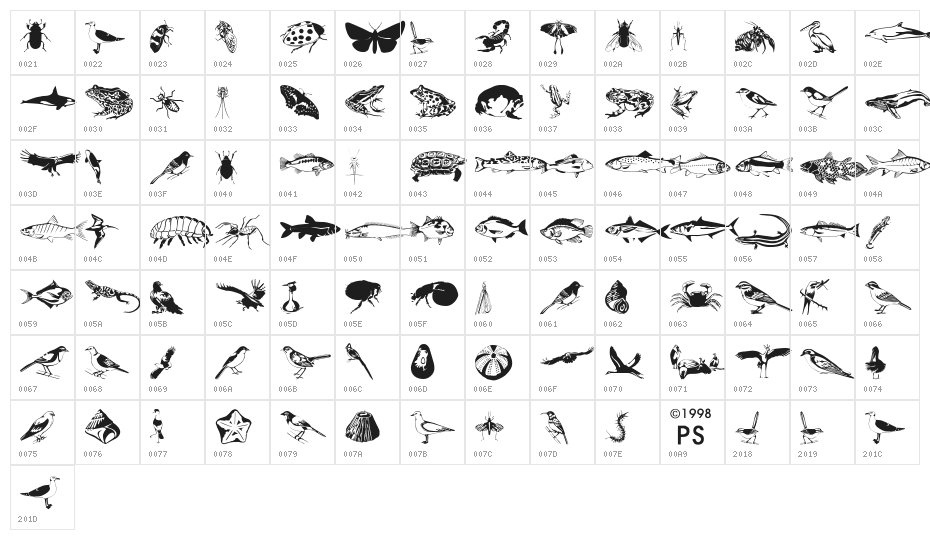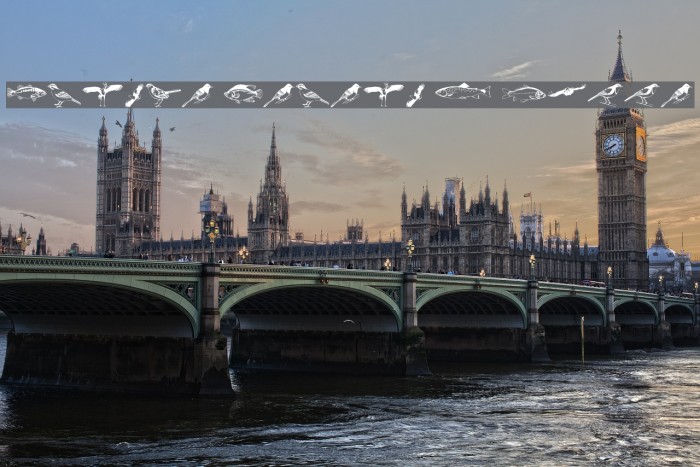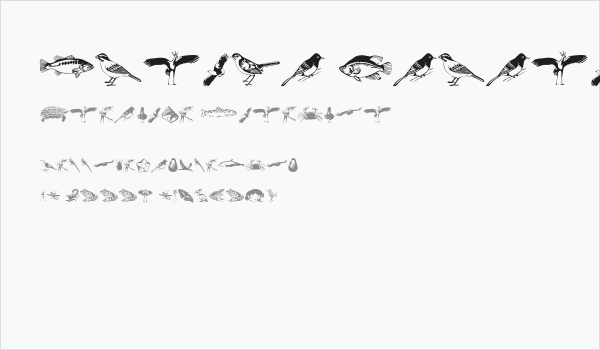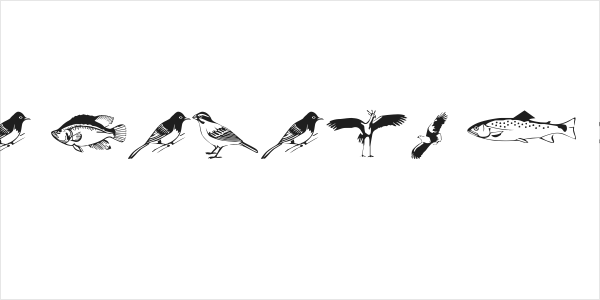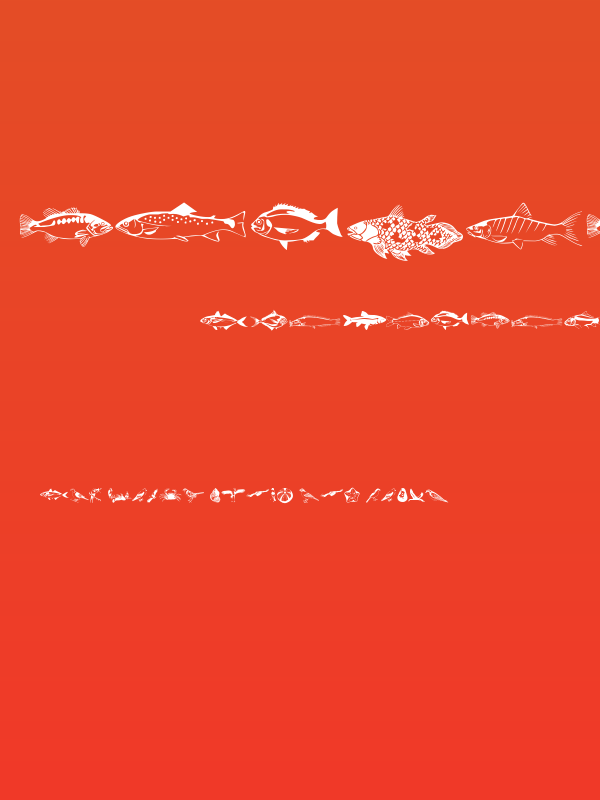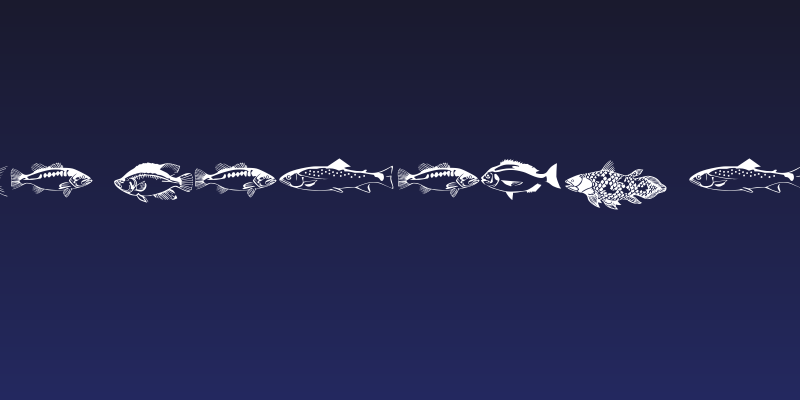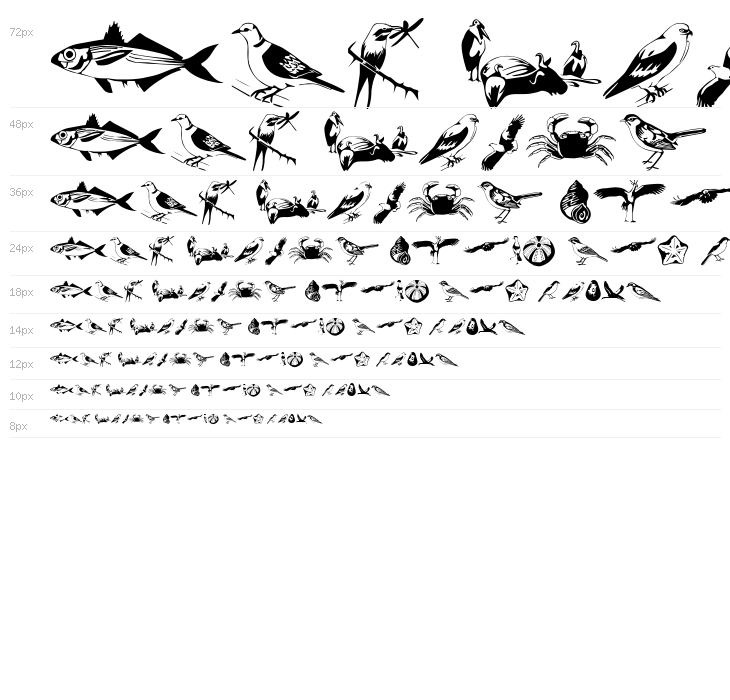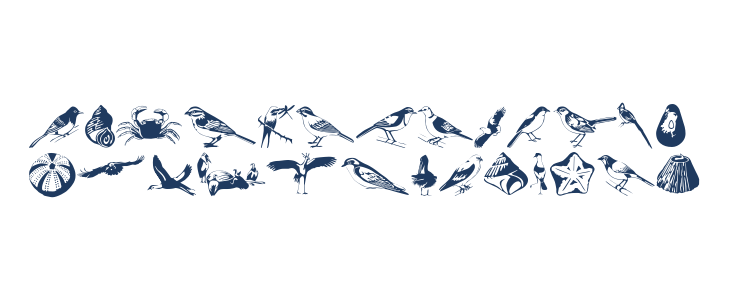
Afrika Safari F Gogga Font
Afrika Safari F Gogga Description
A decorative dingbat font featuring detailed black and white illustrations of various animals, insects, birds, fish, and sea creatures, each glyph representing a different species or natural element in a stylized, silhouette format.
| Overall Style | Decorative, Nature-inspired |
| Use Case | Icons, Illustrations, Decorative elements |
| Proposed Projects | Educational materials, wildlife posters, children's books, nature guides, themed invitations, scrapbooking, and decorative projects. |